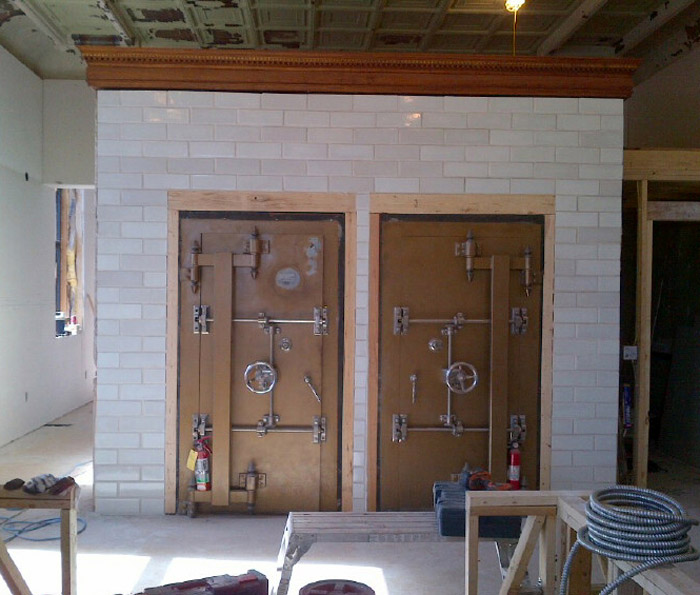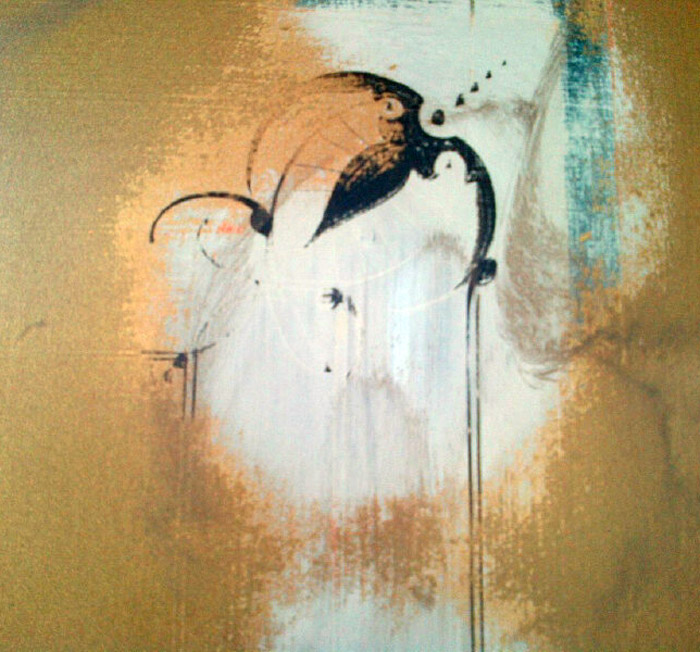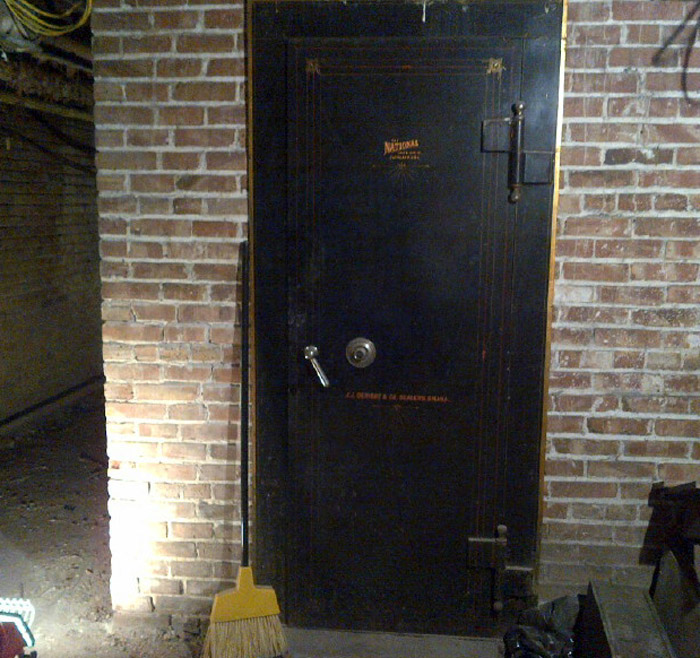
I was contacted by some folks in Spencer, Nebraska who are looking for someone who could restore some old vault doors in a 1906 bank building. It needs to be completed before the middle of November and done on location since it's a working bank.
I'm not sure if I can fit this into my schedule but thought I'd post the photos they sent me in case anyone is available to do this. One photo shows the 2 doors needing repainting & restoring, one has the paint removed to show the pinstiping underneath and one shows a door which doesn't need restoration but which has what is likely underneath the other doors. The original color on the doors was an aluminum bronze.
Wish I had some better photos but this is what they sent me.
Unusual project...Whoever does it will have some investigative work to do stripping back the top layer to reveal the original design. You'd expect it to have a centrally located name/logo as seen on the other door.
Makes me wonder what approach should be taken with regard to the level of conservation/restoration....Of course it depends on what the client wants, but if it was decided that it had significant heritage value, the typical approach would be to carefully strip back to the original design, apply a removable isolating coat so as to separate the original work from restoration work, then re-paint to match the original.
That way you follow the principle of conserving as far as possible original material, and ensure all restoration work is identifiable and reversible without damage to the underlying original
I've done these before. It was about 100 miles from my shop. I have actually restored over 35 antique safes so far. The 2 doors that I restored were in much worse shape than these 2.
My first concern would be the spray painting in a working environment. There are companys now days that seal off the area and set up exaust fans so the employees can't smell it.
I had a locksmith buddy that took it all apart for me, then I did all the body work and paint while the chrome (nickle) was being done, Then we put it back together. Took about a week total. The pinstriping and lettering is the easy part. If anyone has any questions about this job, the can contact me and I would be glad to advise them on any concerns.
This is almost 500 miles from my place. I've done vault doors both on location as well as removing them and restoring them in my shop. Doing it on location brings a multitude of problems, and unfortunately, this is a working bank and the doors need to be restored in-situ.